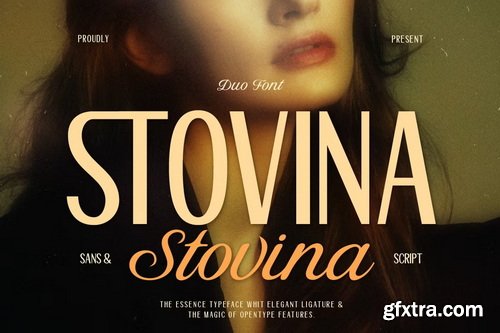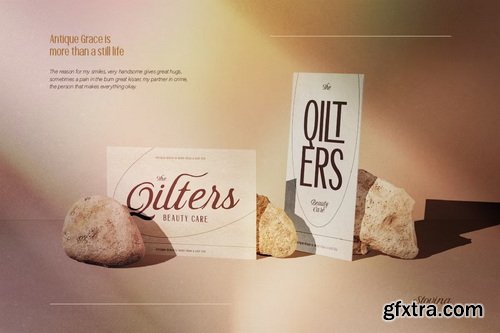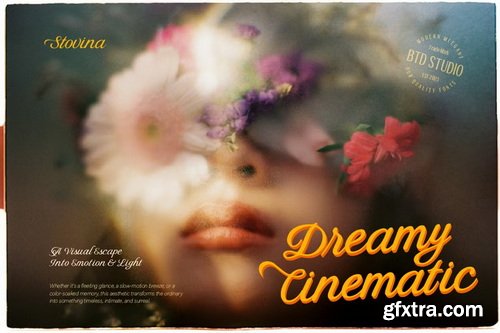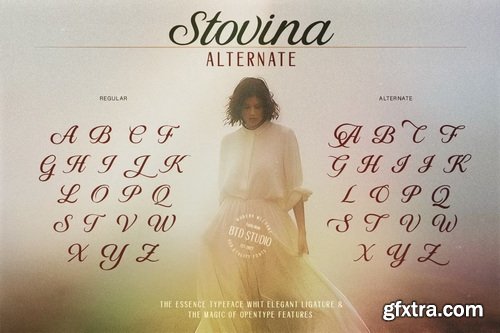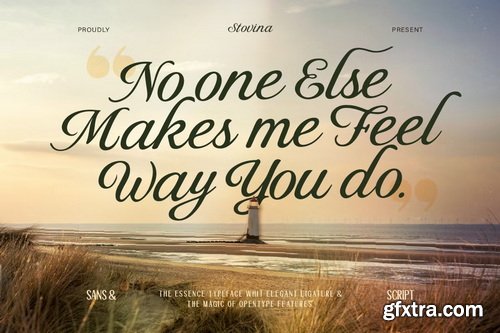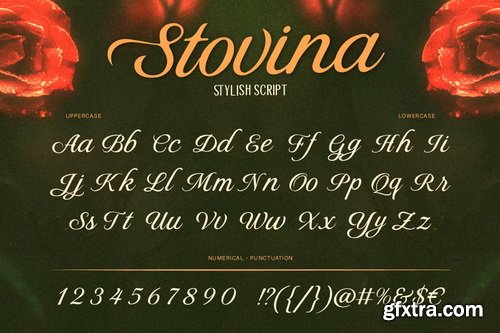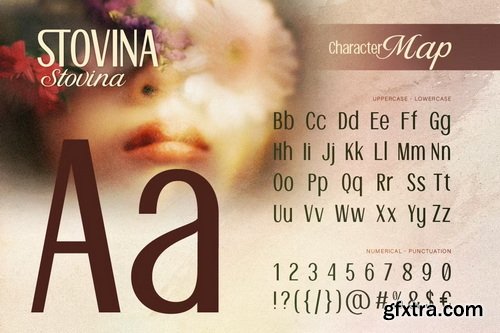
- Meet Stovina, a stylish duo font that combines clean Sans Serif with a flowing Script, creating the perfect balance of professionalism and charm. Designed with elegant ligatures and OpenType features, this font duo adds a touch of sophistication to any project.